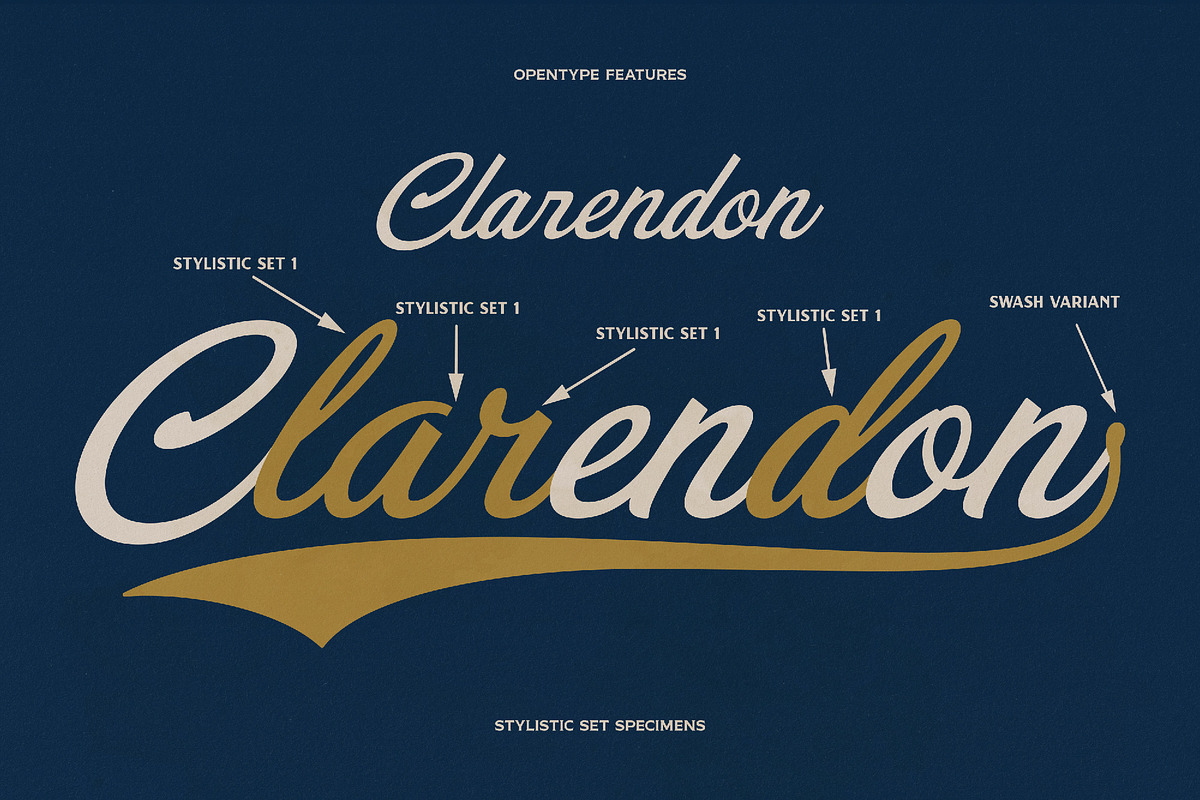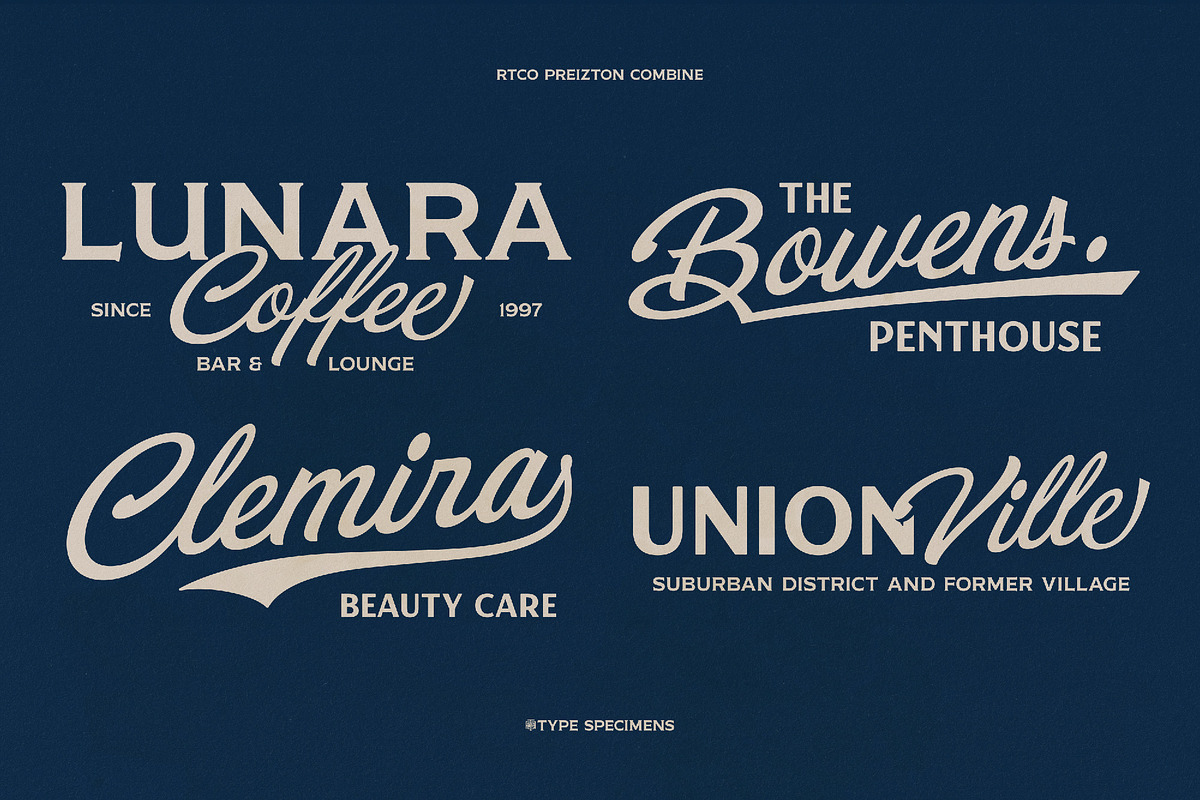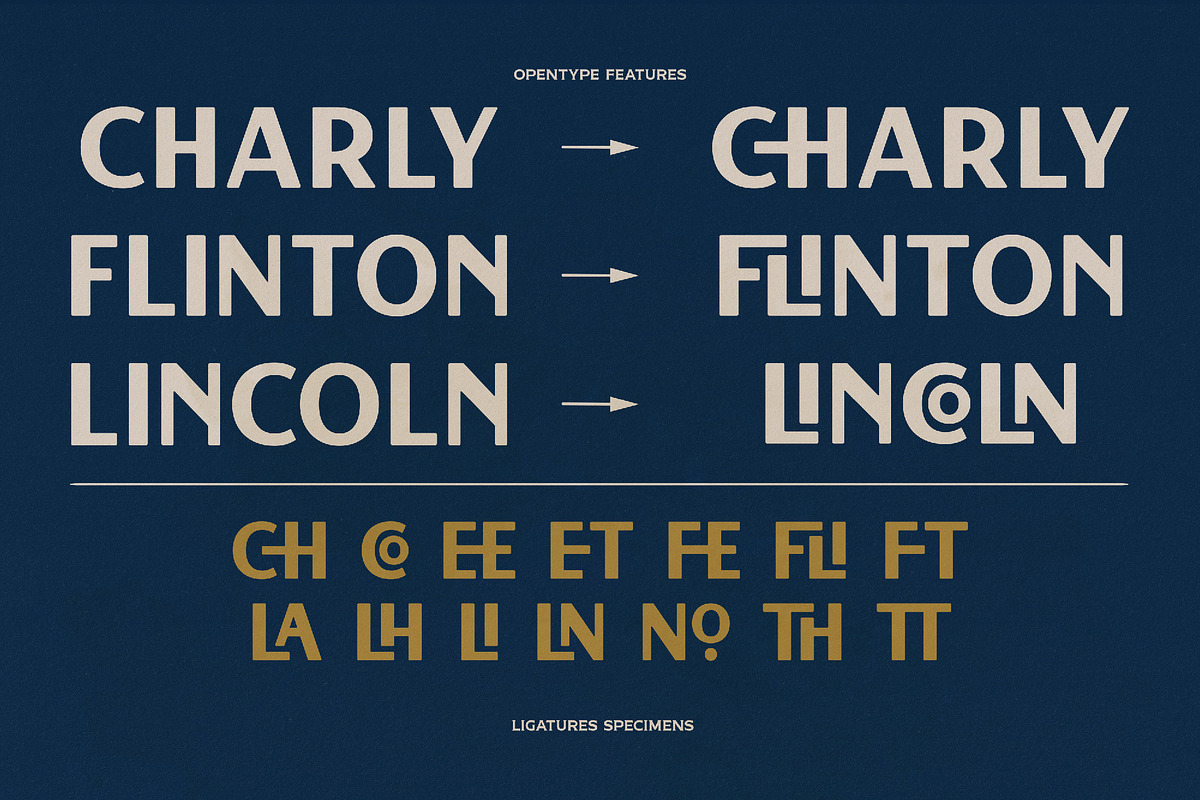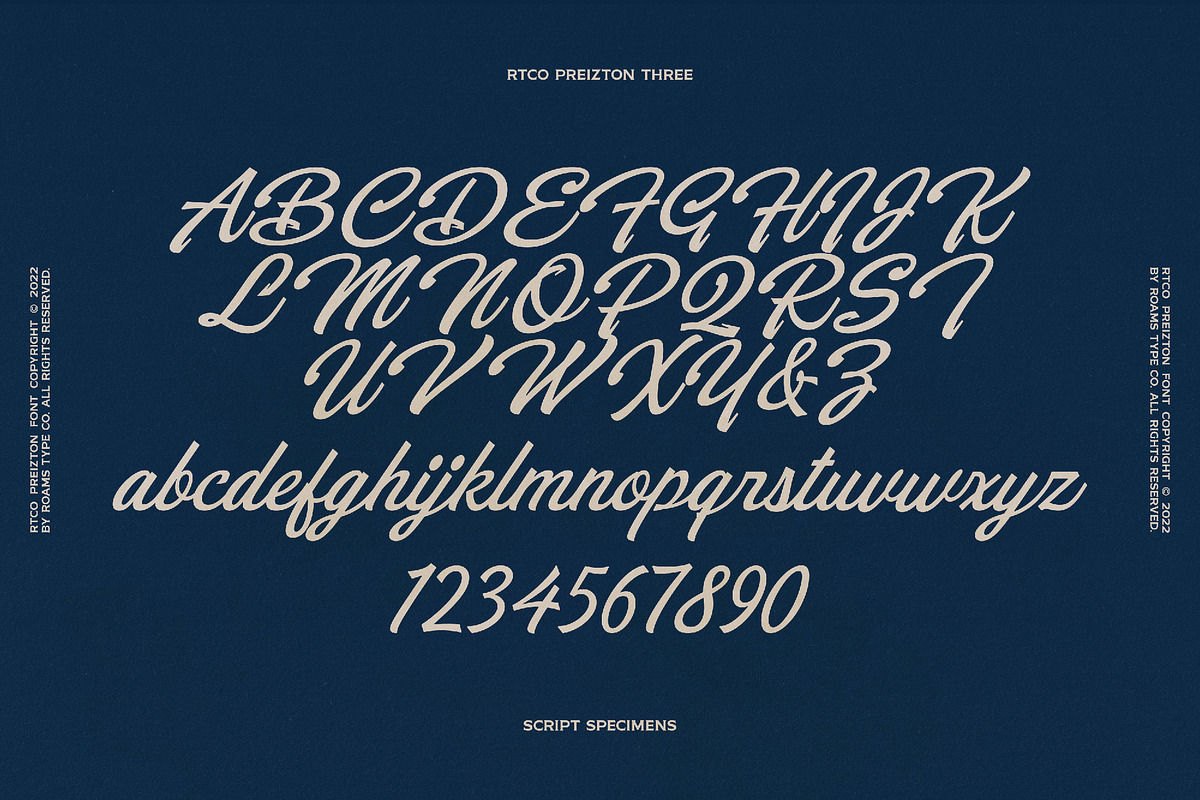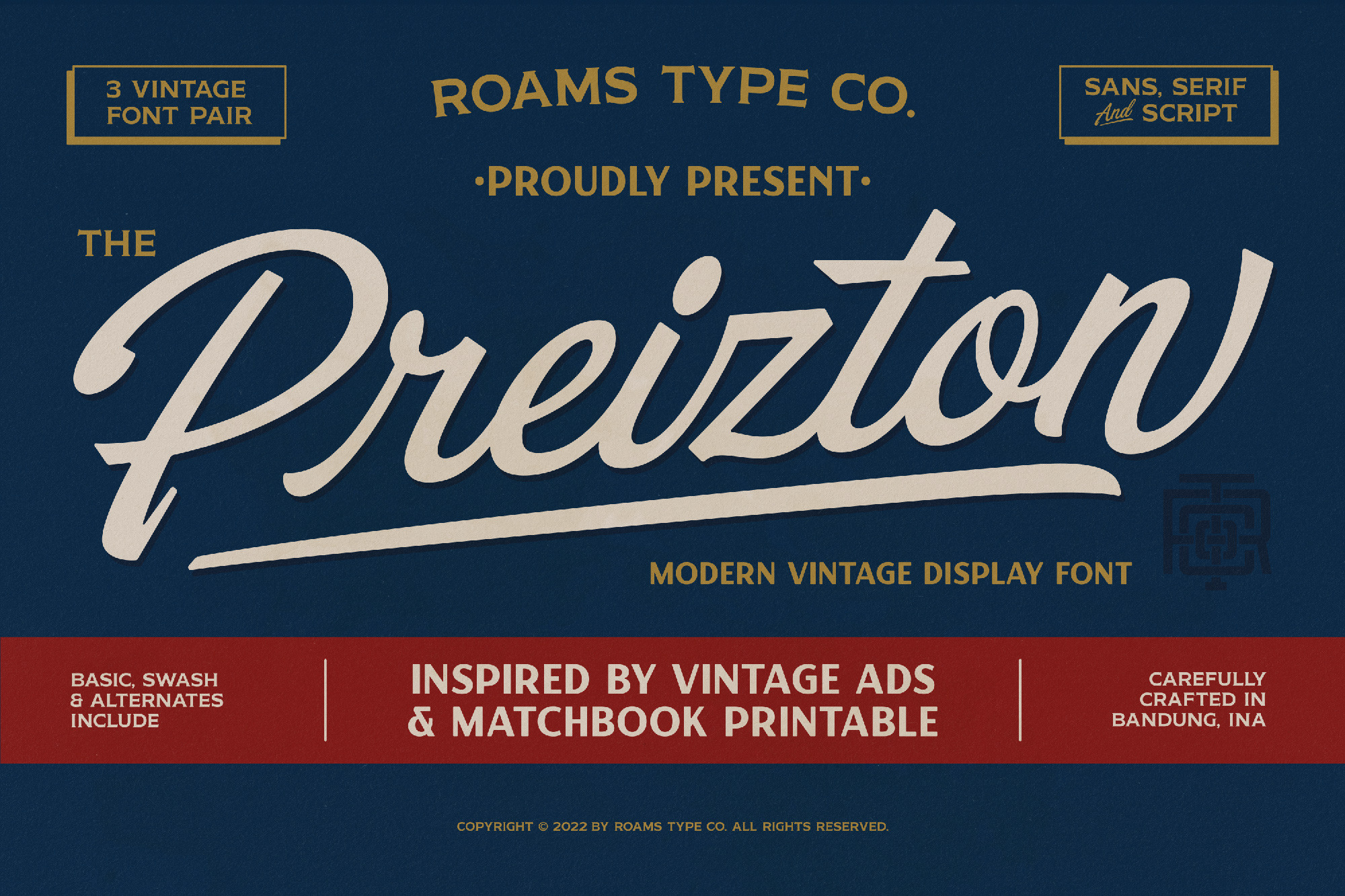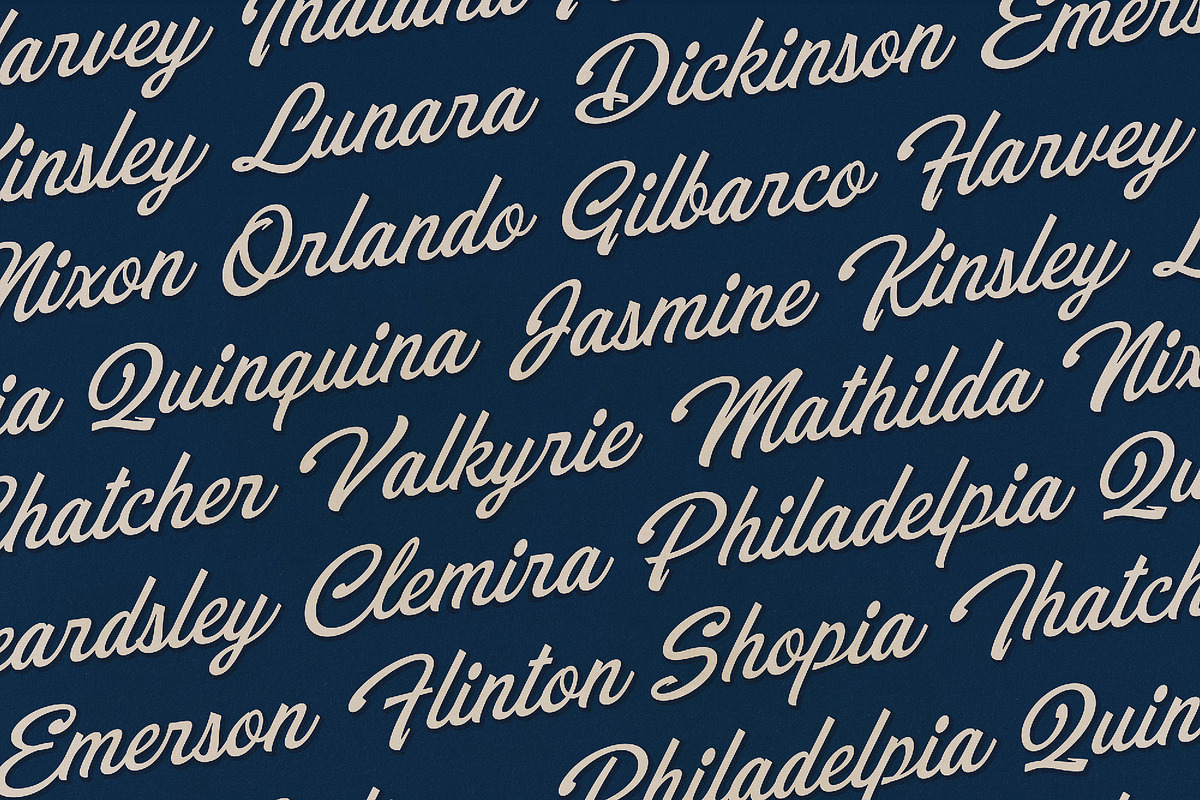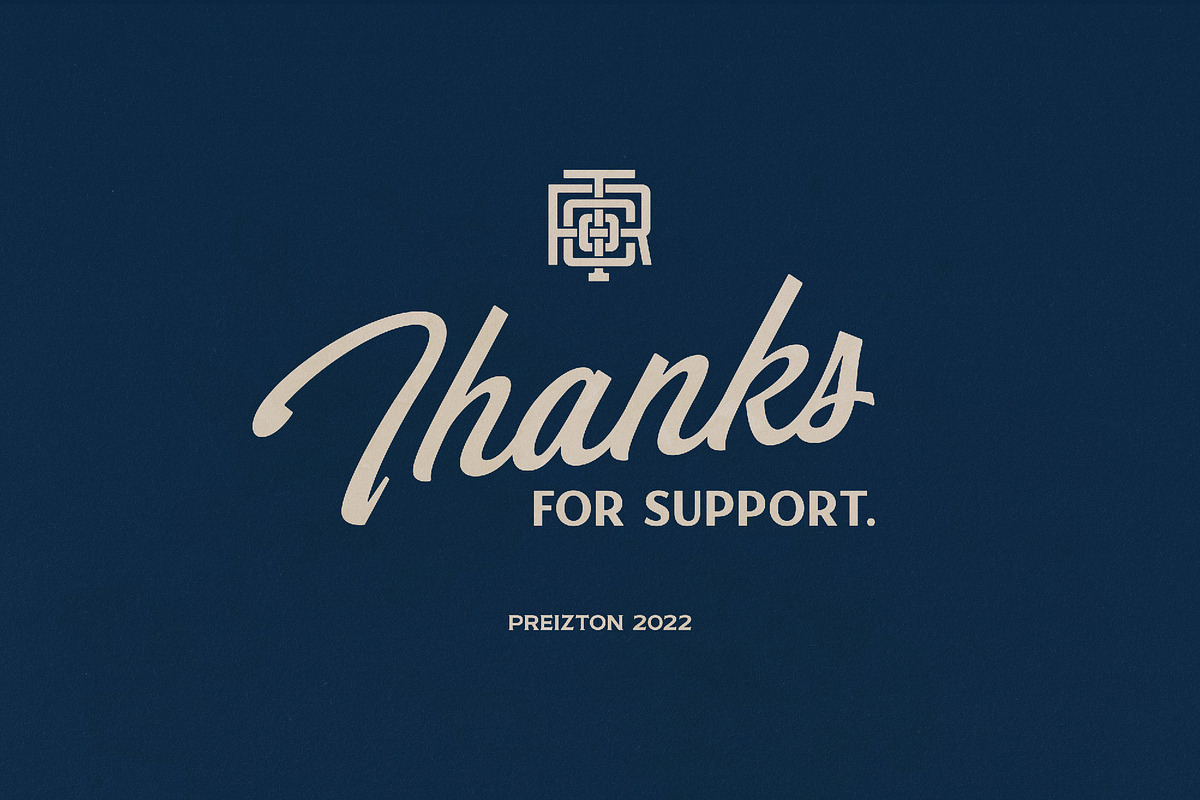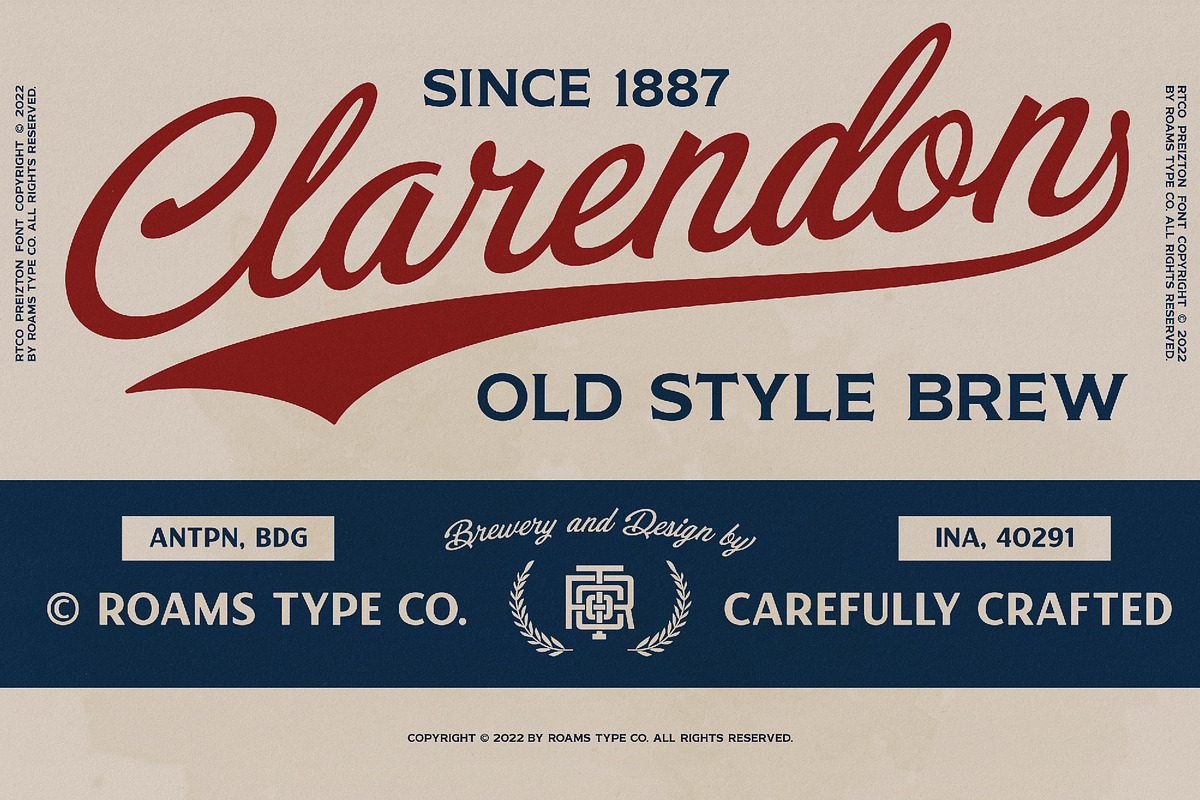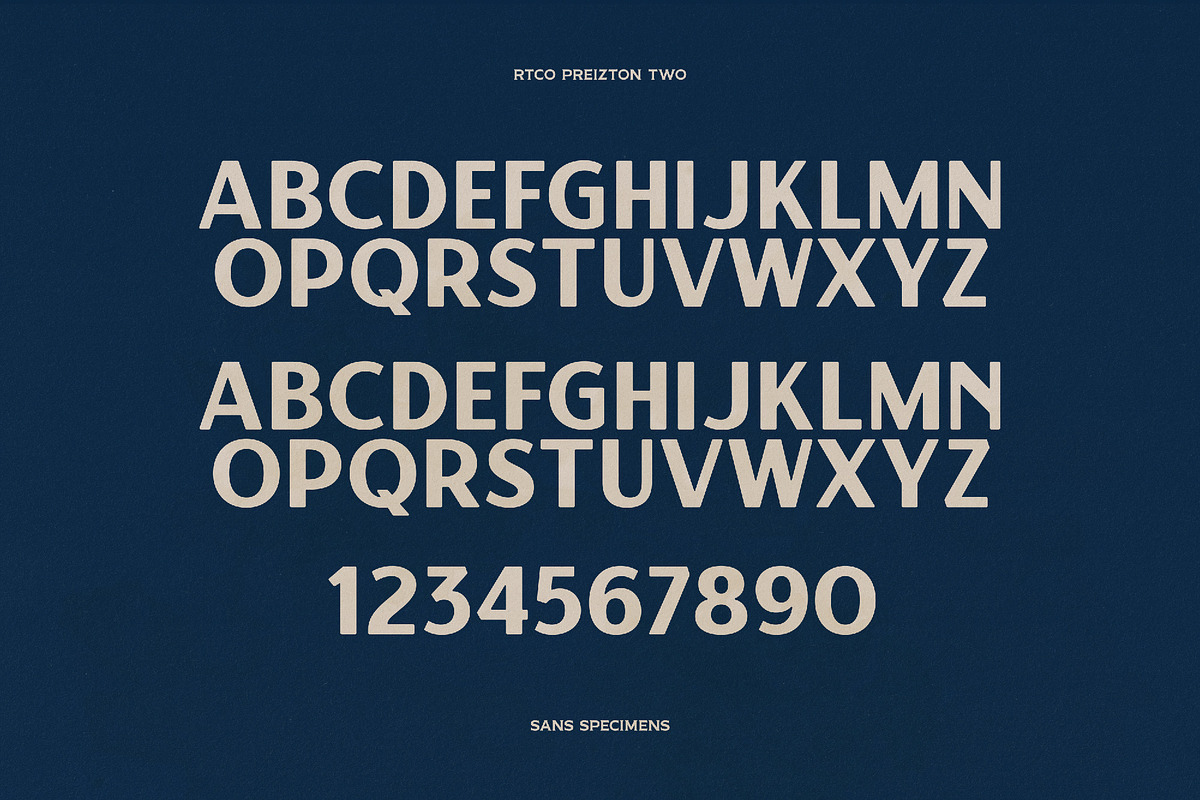
Preizton - Vintage Matchbooks Font
RTCO Preizton Font
RTCO Preizton Font made based on the concept of vintage style graphic design, inspired by the matchbooks & advertising in the 60-80s era.
There are 3 types of this font, including Sans, Serif, and Script.
Sans font has an opentype ligature feature that makes the font dynamic, while in the Script font there are alternatives that make it look better
This font is suitable for graphic designs such as logotypes, merchandise, printed stickers, and other branding needs.
- RTCO Preizton Sans
- RTCO Preizton Script
- RTCO Preizton Serif